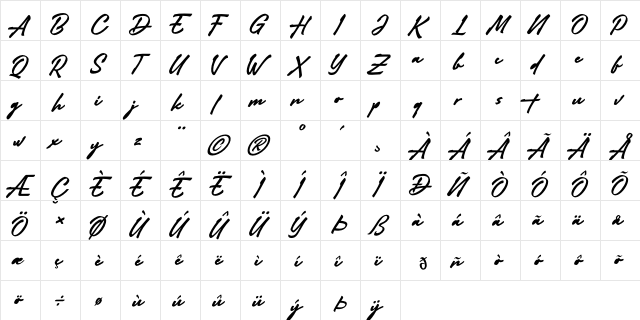
Adelina Camarie Regular
| Designer | Rangga Singgih Subekti . 2019 |
Adelina Camarie is a composed and adaptable typeface that performs quietly and consistently across a wide range of design contexts.